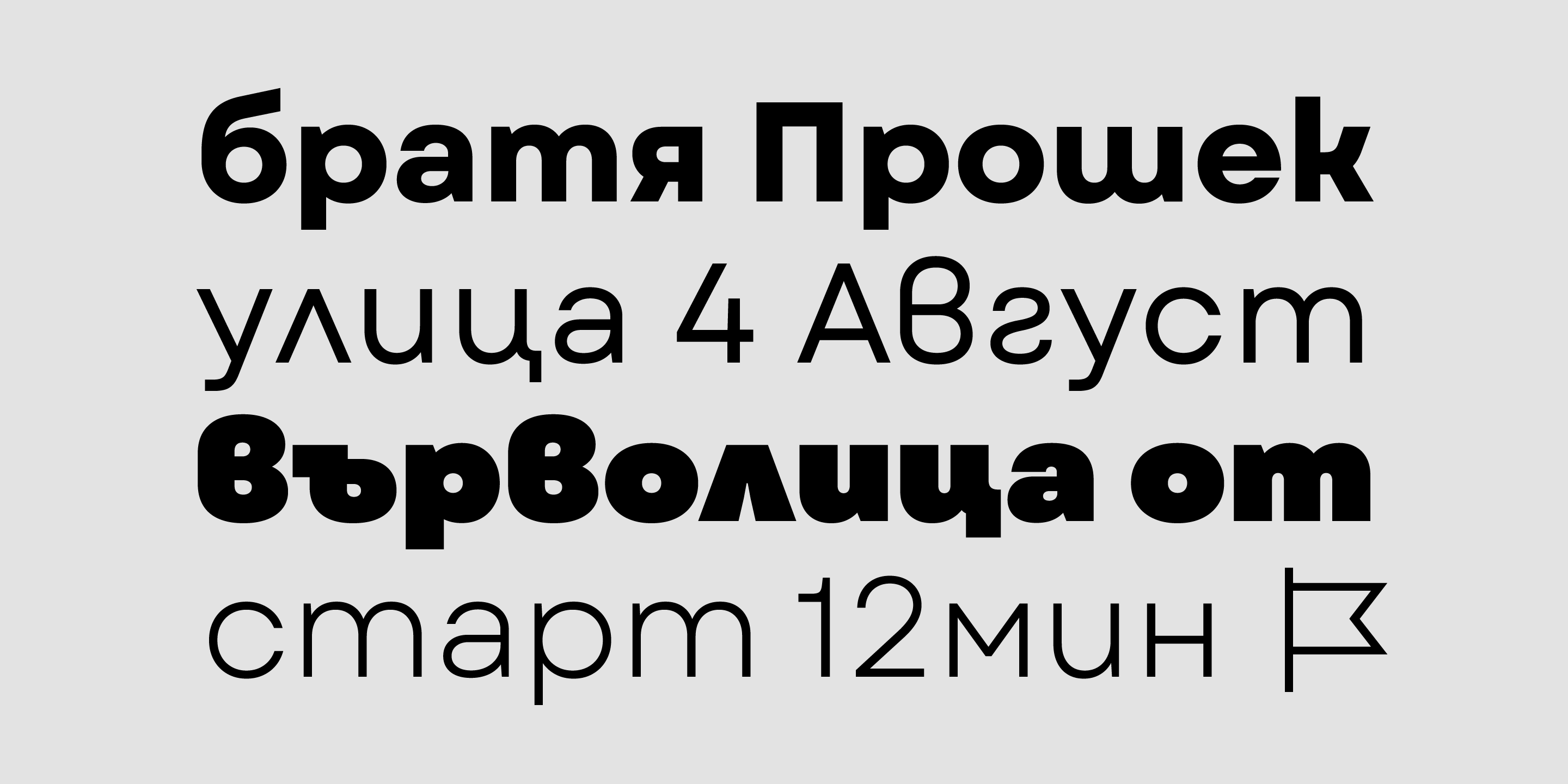
Garet Font Download - Garet w05 bold font is a basic, sans serif type font that can be used. Moreover, you can embed it to your website. Garet is a free font for commercial use created by spacetype foundry. Garet is a sans serif type font. Garet w05 bold font download is available free from 8font.com. Installable on pc, mac, linux, ios, and android platforms. Garet font download is available free from fontget. Discover the free garet regular font at free font download !
Garet w05 bold font is a basic, sans serif type font that can be used. Installable on pc, mac, linux, ios, and android platforms. Moreover, you can embed it to your website. Garet font download is available free from fontget. Garet is a sans serif type font. Garet is a free font for commercial use created by spacetype foundry. Garet w05 bold font download is available free from 8font.com. Discover the free garet regular font at free font download !
Garet font download is available free from fontget. Garet is a free font for commercial use created by spacetype foundry. Discover the free garet regular font at free font download ! Garet w05 bold font download is available free from 8font.com. Garet is a sans serif type font. Installable on pc, mac, linux, ios, and android platforms. Moreover, you can embed it to your website. Garet w05 bold font is a basic, sans serif type font that can be used.
Garet Font Family from Spacetype
Garet is a sans serif type font. Discover the free garet regular font at free font download ! Installable on pc, mac, linux, ios, and android platforms. Garet font download is available free from fontget. Garet w05 bold font download is available free from 8font.com.
Discover the free garet regular font at free font download ! Moreover, you can embed it to your website. Garet font download is available free from fontget. Garet w05 bold font is a basic, sans serif type font that can be used. Garet w05 bold font download is available free from 8font.com.
Garet w05 bold font is a basic, sans serif type font that can be used. Garet is a free font for commercial use created by spacetype foundry. Garet is a sans serif type font. Installable on pc, mac, linux, ios, and android platforms. Moreover, you can embed it to your website.
Garet is a sans serif type font. Installable on pc, mac, linux, ios, and android platforms. Discover the free garet regular font at free font download ! Garet font download is available free from fontget. Garet is a free font for commercial use created by spacetype foundry.
Garet w05 bold font is a basic, sans serif type font that can be used. Moreover, you can embed it to your website. Garet is a free font for commercial use created by spacetype foundry. Installable on pc, mac, linux, ios, and android platforms. Garet is a sans serif type font.
Garet Font Family from Spacetype
Installable on pc, mac, linux, ios, and android platforms. Garet is a sans serif type font. Garet font download is available free from fontget. Garet w05 bold font download is available free from 8font.com. Moreover, you can embed it to your website.
Garet Font Family from Spacetype
Garet w05 bold font is a basic, sans serif type font that can be used. Garet font download is available free from fontget. Installable on pc, mac, linux, ios, and android platforms. Discover the free garet regular font at free font download ! Moreover, you can embed it to your website.
Garet Font Family FreeDaFonts
Garet font download is available free from fontget. Installable on pc, mac, linux, ios, and android platforms. Garet w05 bold font is a basic, sans serif type font that can be used. Moreover, you can embed it to your website. Garet is a free font for commercial use created by spacetype foundry.
Garet Font Free by Spacetype » Font Squirrel
Discover the free garet regular font at free font download ! Moreover, you can embed it to your website. Garet w05 bold font download is available free from 8font.com. Garet font download is available free from fontget. Installable on pc, mac, linux, ios, and android platforms.
Garet is a free font for commercial use created by spacetype foundry. Garet font download is available free from fontget. Garet w05 bold font is a basic, sans serif type font that can be used. Installable on pc, mac, linux, ios, and android platforms.
Garet Is A Sans Serif Type Font.